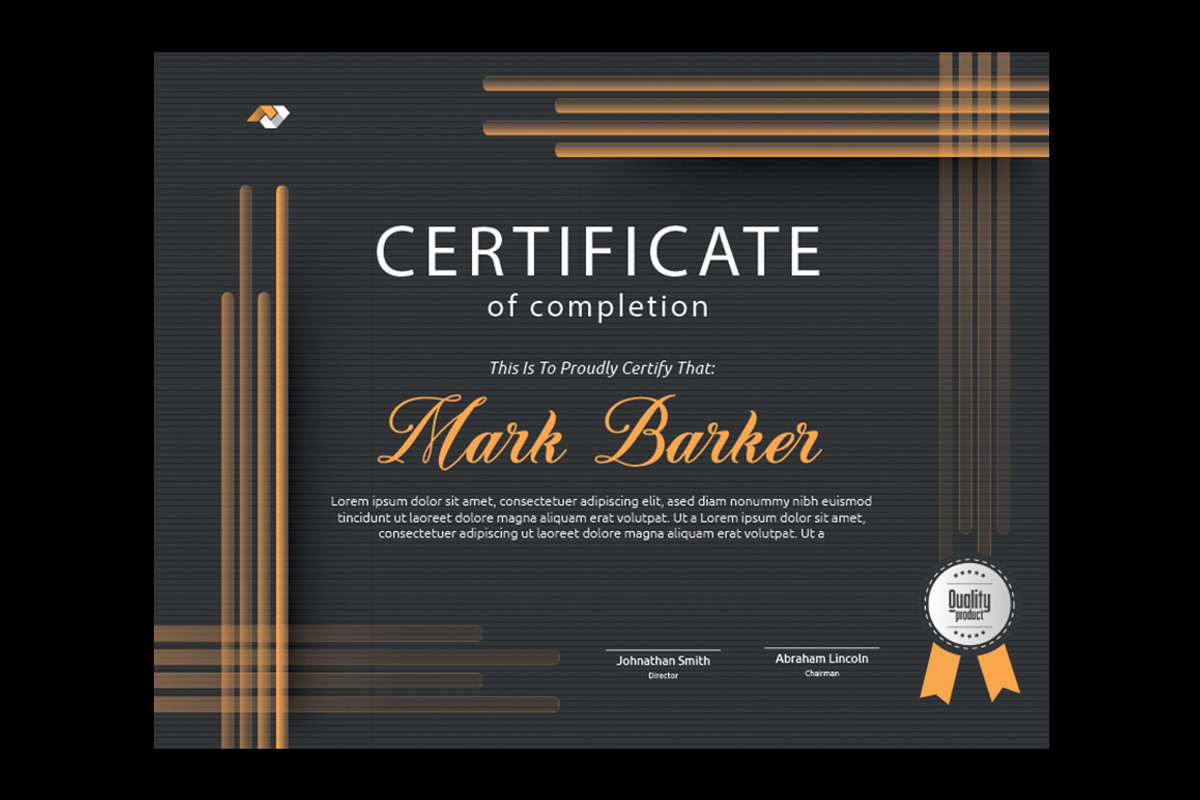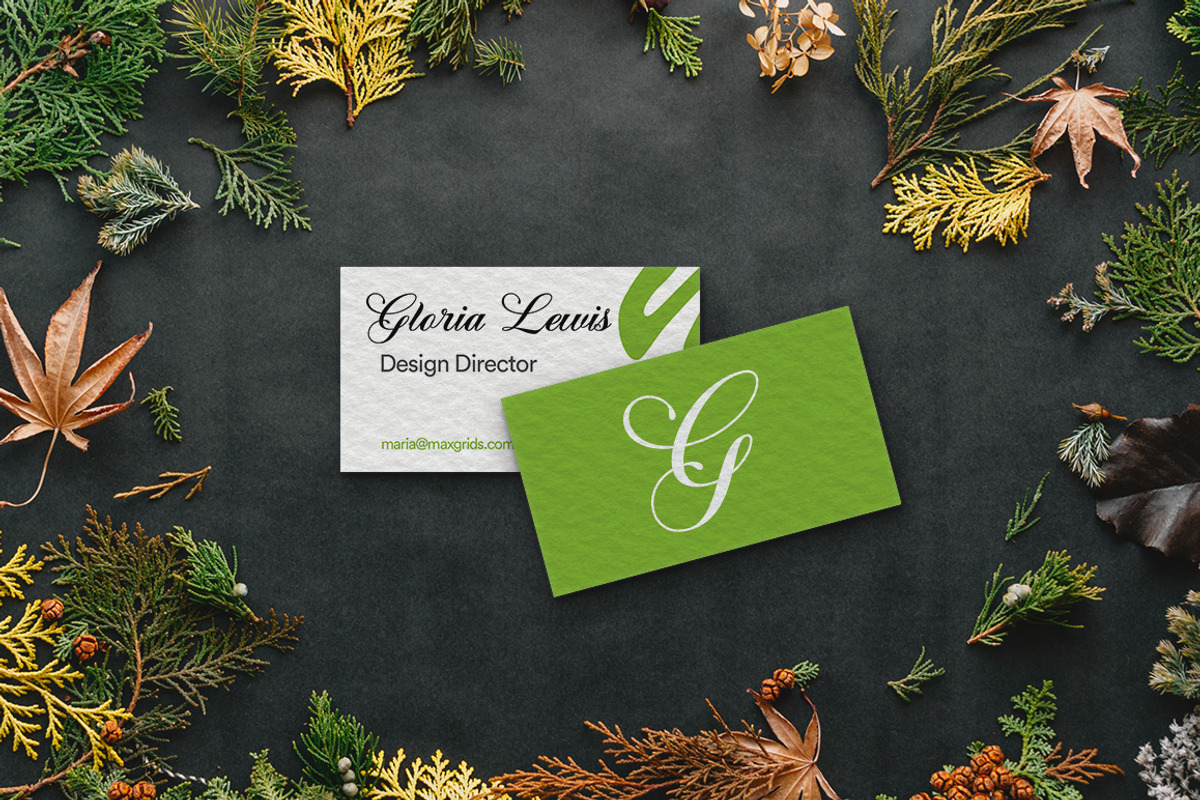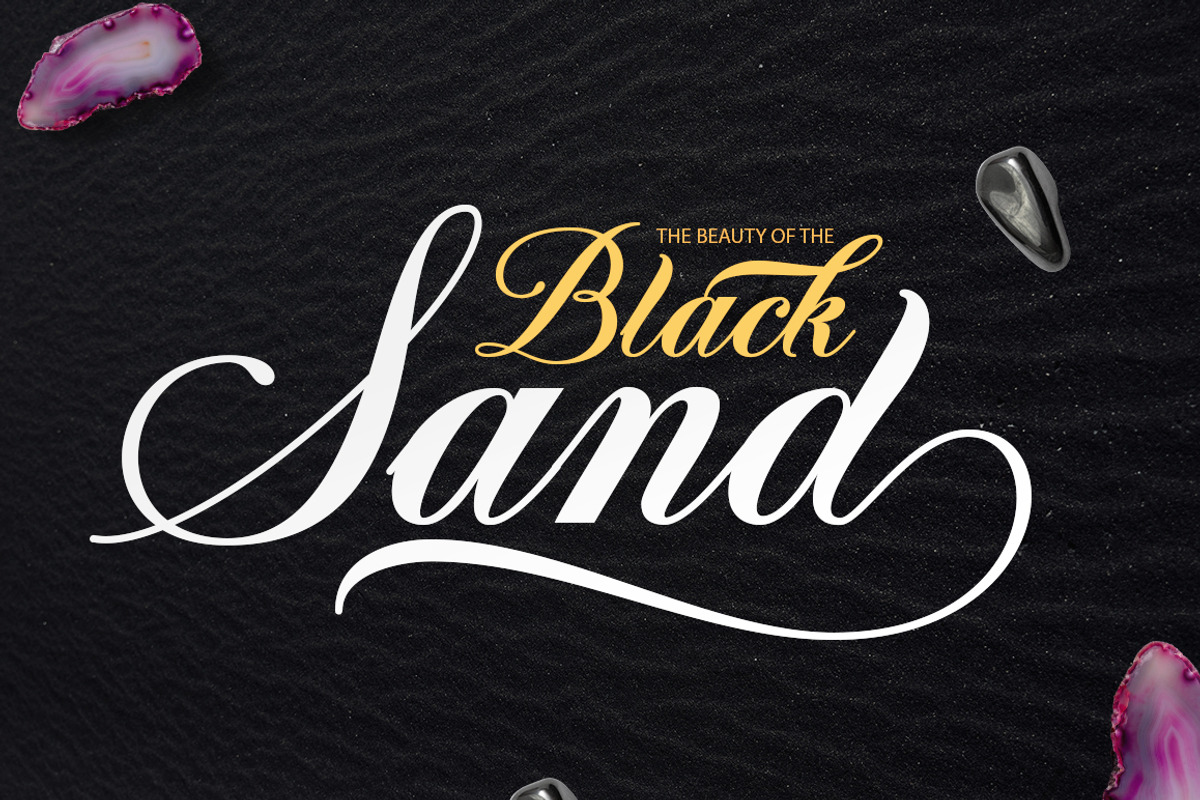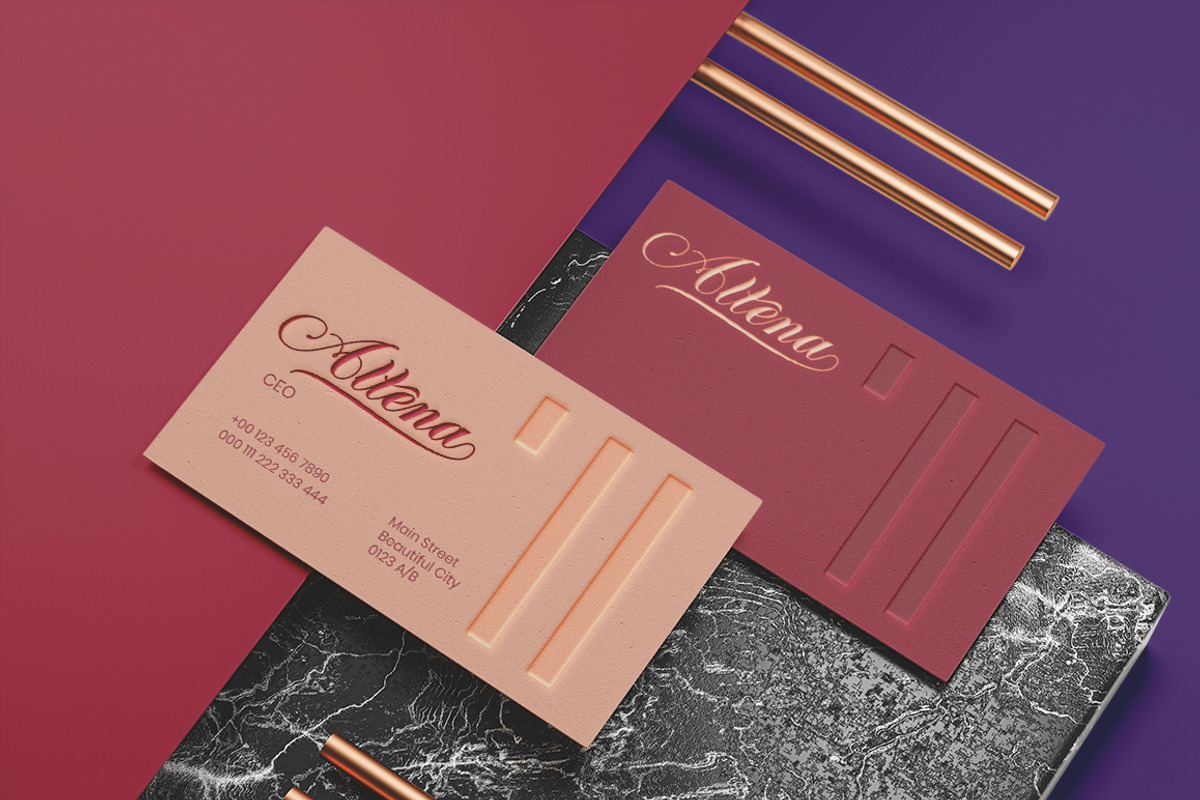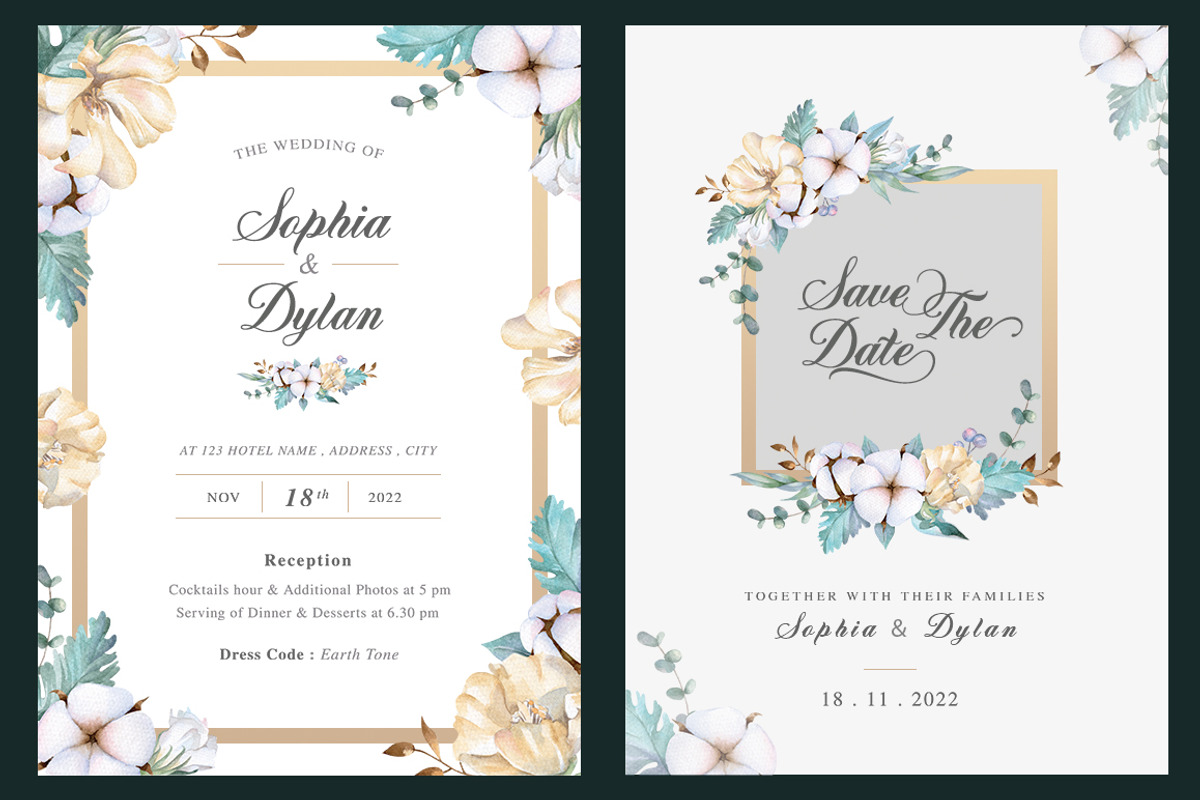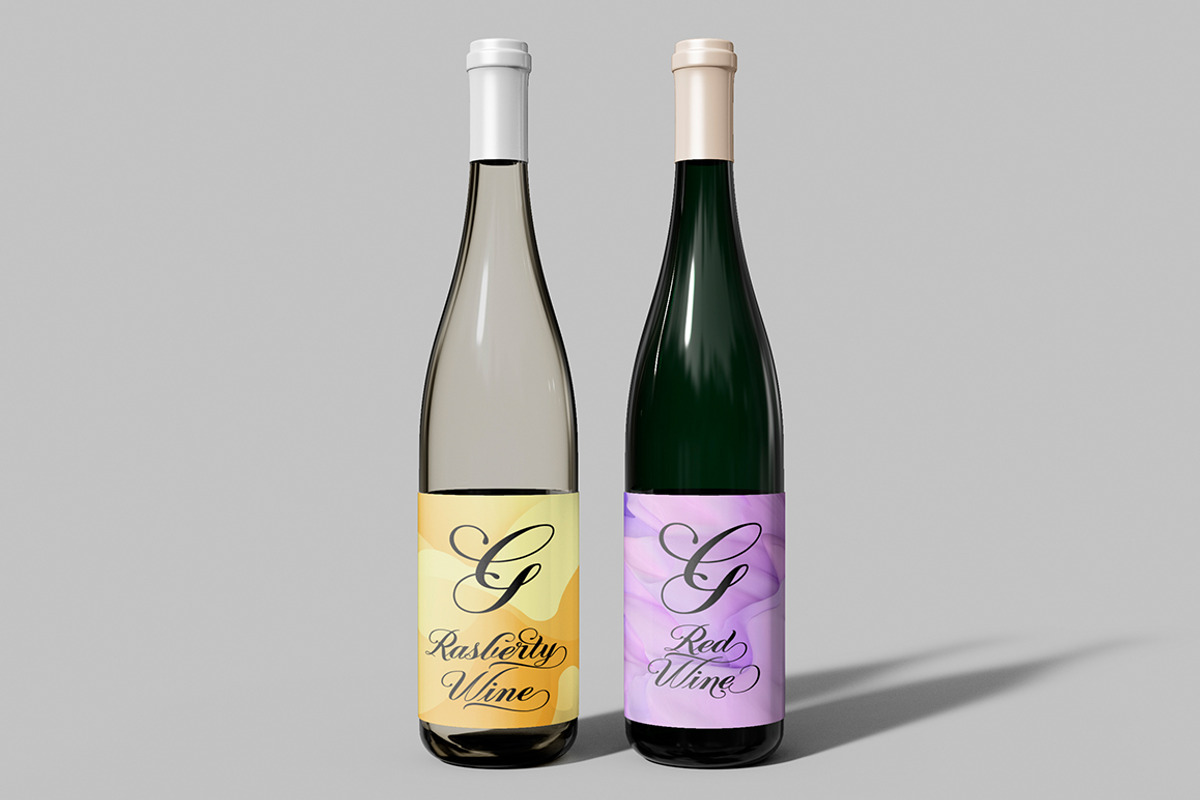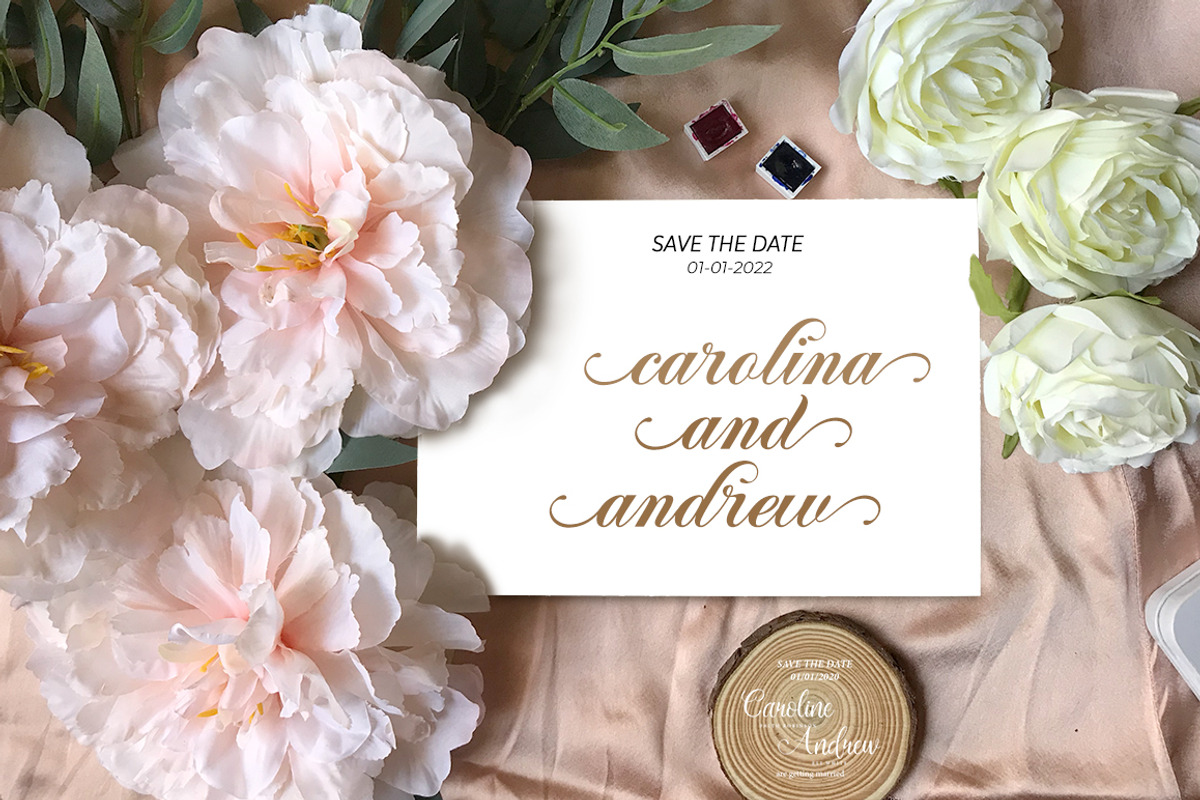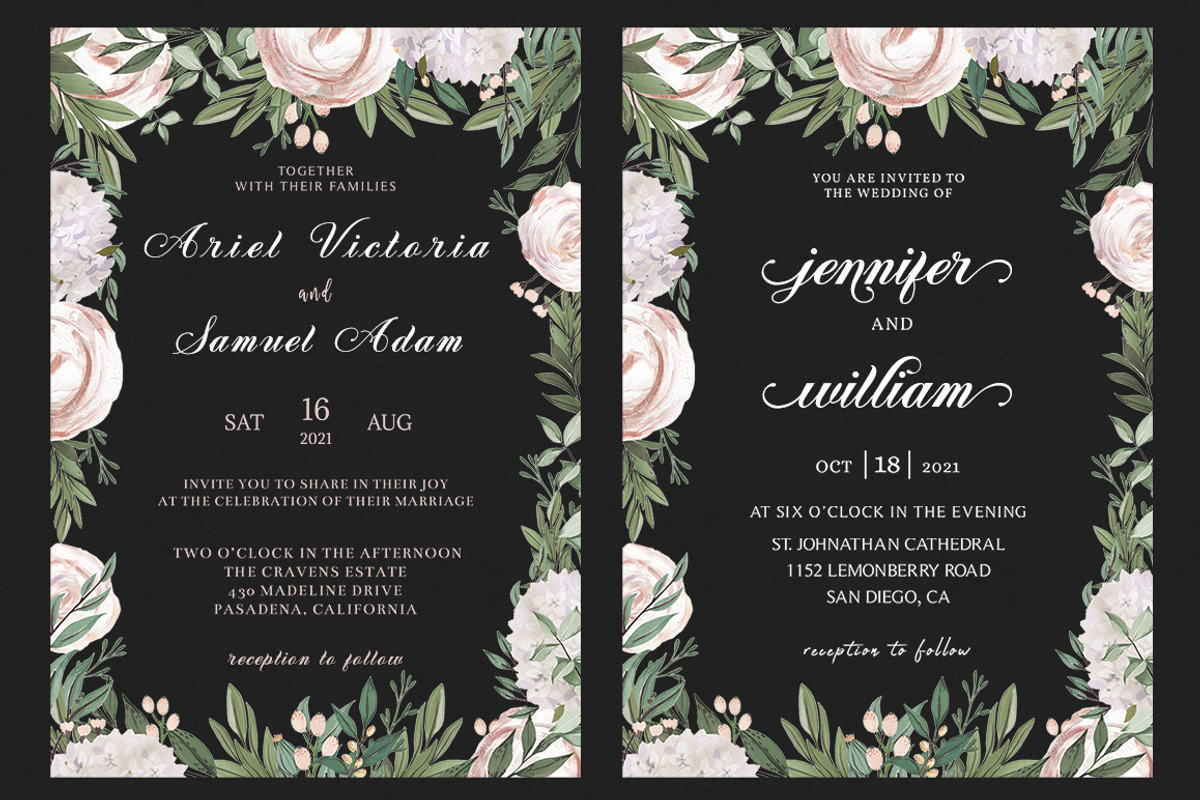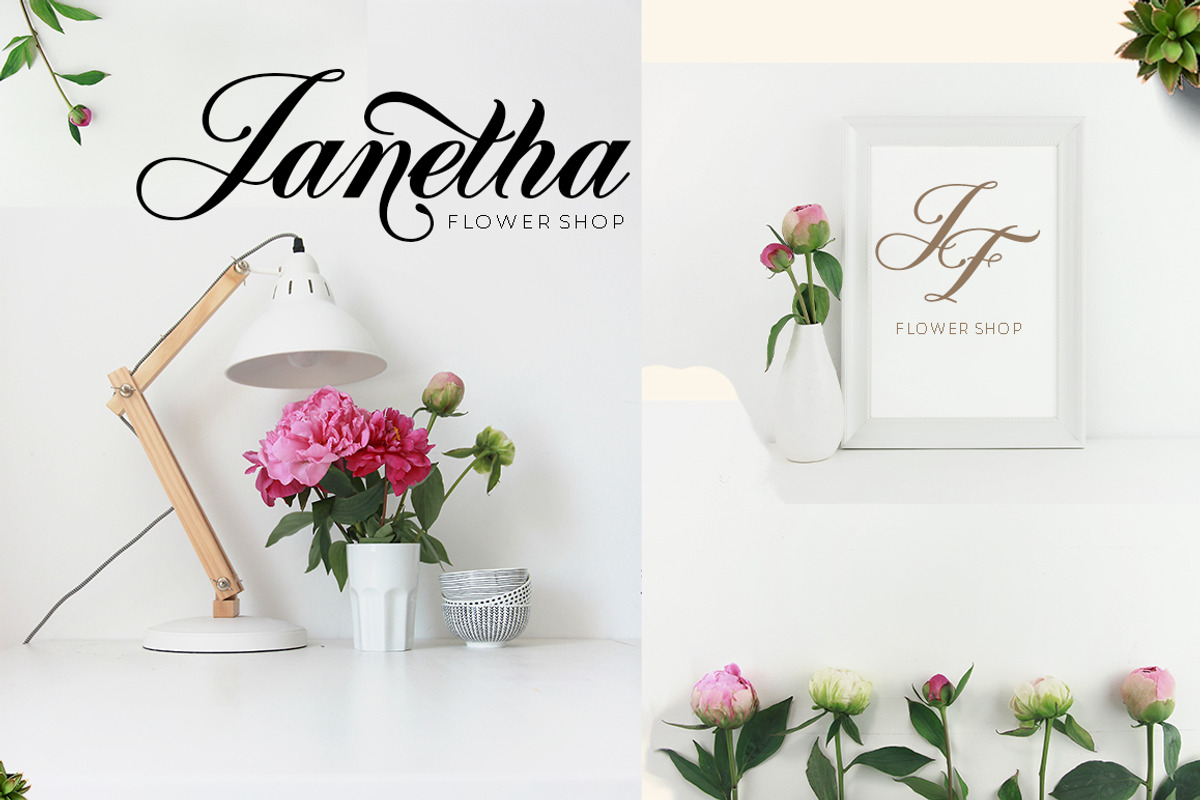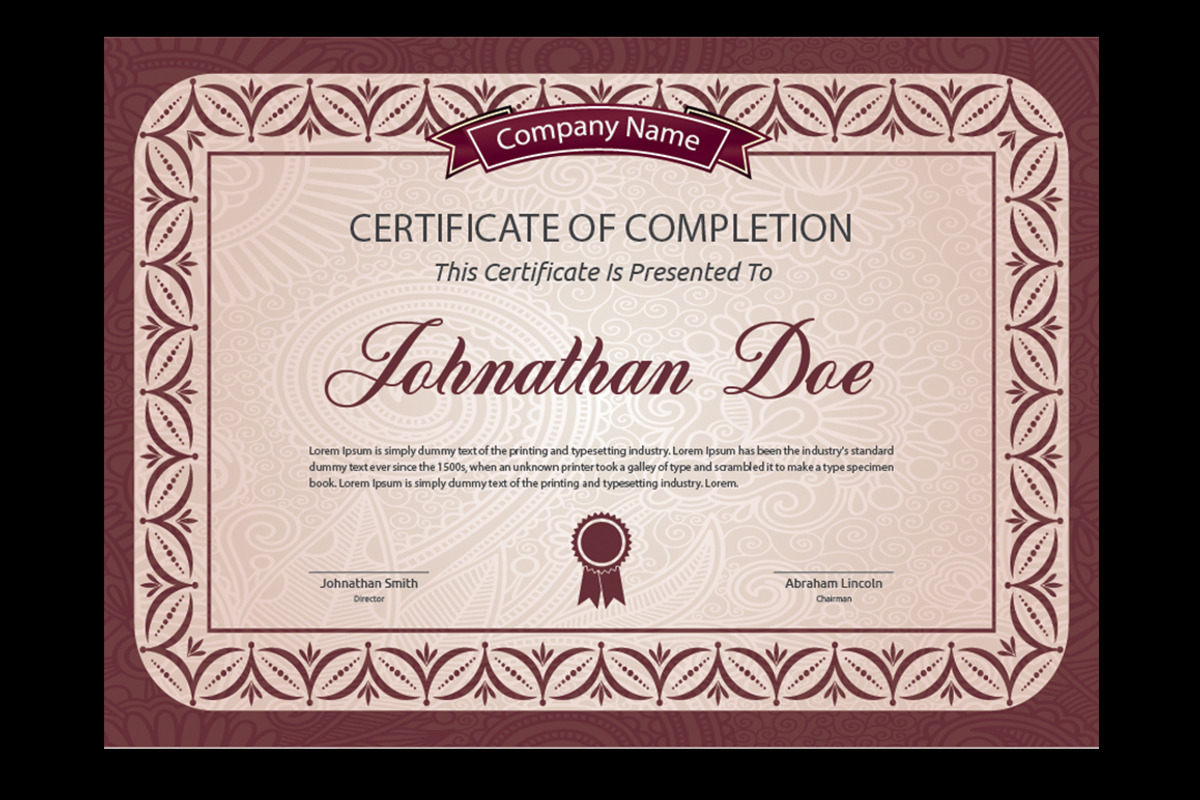
Belton
Belton is a unique handwritten font. It includes elegant swashes which can be used to give a luxurious look to your designs. It can be used for various purposes such as logos, wedding invitations, headings, t-shirts, letterhead, signage, labels, news, posters, badges and so much more.